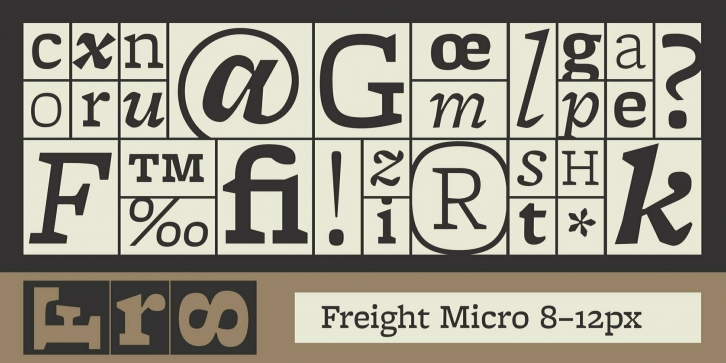
Created for captions and similar serif situations where small type is required, Freight Micro is amazingly illustrative for large type too. This half-wedge, half-slab design provides the firmest of foundations to build your design on. The abruptness of the sharply carved italics take emphasis to a higher form. Freight Micro is an exercise in whispering very loudly.